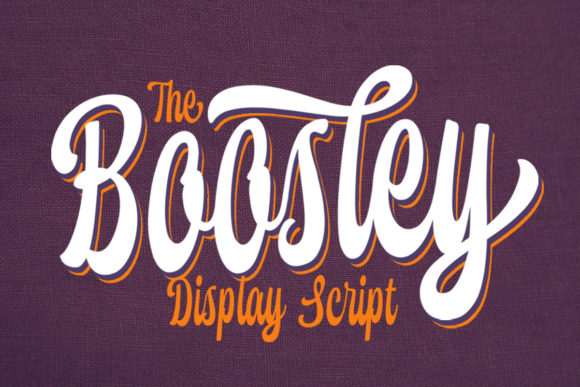
Introducing Boosley Font: The Ultimate Retro and Bold Handwritten Font
In the world of typography, fonts play a crucial role in making or breaking the visual appeal of a design. A well-chosen font can elevate your project from ordinary to extraordinary, adding a touch of personality and style that sets it apart from the rest. If you’re looking for a font that exudes confidence, dynamism, and a dash of nostalgia, look no further than Boosley Font. In this article, we’ll delve into the world of Boosley Font, exploring its features, benefits, and uses, as well as provide tips on how to make the most of this incredible typeface.
What is Boosley Font?
Boosley Font is a retro and bold handwritten font, carefully crafted to give your headlines and logotype projects a stylish touch. With its strong, confident, and dynamic appearance, Boosley Font is the perfect choice for designers looking to add a touch of nostalgia to their designs. Whether you’re working on a branding project, a poster, or a website, Boosley Font is sure to make a statement.
Key Features of Boosley Font
- Retro and Bold: Boosley Font boasts a retro and bold style that’s sure to turn heads. Its thick lines and rounded edges give it a classic, timeless feel that’s perfect for designs that require a touch of nostalgia.
- Handwritten: Boosley Font is a handwritten font, which means it has a personal and organic feel that’s hard to replicate with digital fonts. Its imperfections and quirks add to its charm, making it perfect for designs that require a touch of humanity.
- Strong and Confident: Boosley Font reads as strong, confident, and dynamic, making it perfect for headlines, titles, and logotypes. Its bold appearance ensures that your message gets noticed, while its confident tone helps to establish trust and credibility.
- Nostalgic Character: Boosley Font has a nostalgic character that’s sure to evoke memories of the past. Its retro style and handwritten feel make it perfect for designs that require a touch of vintage charm.
Benefits of Using Boosley Font
So, why should you choose Boosley Font for your next design project? Here are just a few benefits of using this incredible typeface:
- Unique and Memorable: Boosley Font is a unique and memorable typeface that’s sure to set your design apart from the rest. Its bold and retro style ensures that your message gets noticed, while its handwritten feel adds a touch of personality and humanity.
- Versatile: Boosley Font is a versatile typeface that can be used in a variety of design projects, from branding and advertising to packaging and web design. Its bold appearance and confident tone make it perfect for headlines, titles, and logotypes, while its nostalgic character adds a touch of warmth and personality.
- Easy to Read: Despite its bold and retro style, Boosley Font is surprisingly easy to read. Its clear and legible design ensures that your message gets across quickly and efficiently, making it perfect for designs that require a touch of style and sophistication.
How to Use Boosley Font
So, how can you make the most of Boosley Font in your design projects? Here are a few tips to get you started:
- Use it as a Headline Font: Boosley Font is perfect for headlines and titles, where its bold and confident appearance can really make an impact. Use it to grab attention, establish your brand’s personality, and add a touch of style to your design.
- Pair it with Other Fonts: Boosley Font can be paired with other fonts to create a unique and interesting contrast. Try pairing it with a clean and simple sans-serif font to create a bold and eye-catching combination.
- Experiment with Colors: Boosley Font looks great in a variety of colors, from bold and bright to muted and pastel. Experiment with different colors to find the perfect combination for your design.
In conclusion, Boosley Font is an incredible typeface that’s sure to add a touch of style and personality to your design projects. Its retro and bold style, combined with its handwritten feel and nostalgic character, make it perfect for designs that require a touch of confidence, dynamism, and nostalgia. Whether you’re working on a branding project, a poster, or a website, Boosley Font is sure to make a statement. So why not give it a try and see the difference it can make?
- What is Boosley Font?: Boosley Font is a retro and bold handwritten font, crafted to give your headlines and logotype projects a stylish touch.
- What are the key features of Boosley Font?: Boosley Font boasts a retro and bold style, a handwritten feel, and a strong, confident, and dynamic appearance.
- What are the benefits of using Boosley Font?: Boosley Font is unique and memorable, versatile, and easy to read, making it perfect for a variety of design projects.